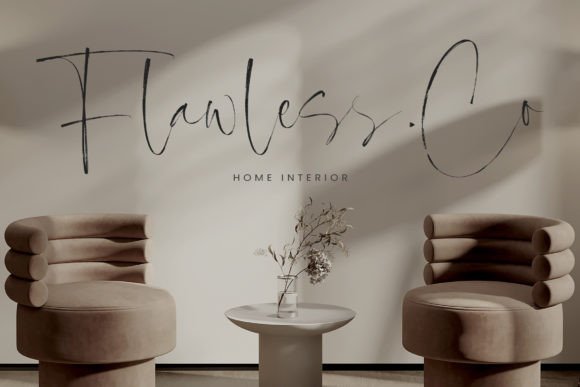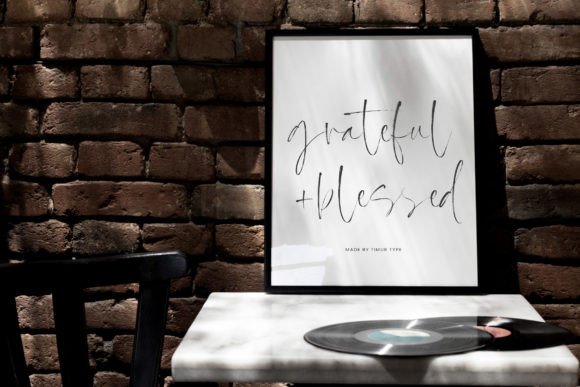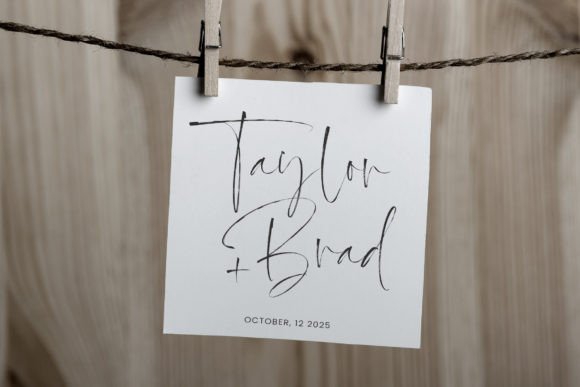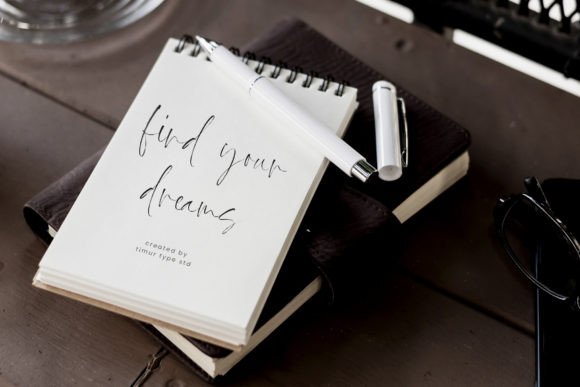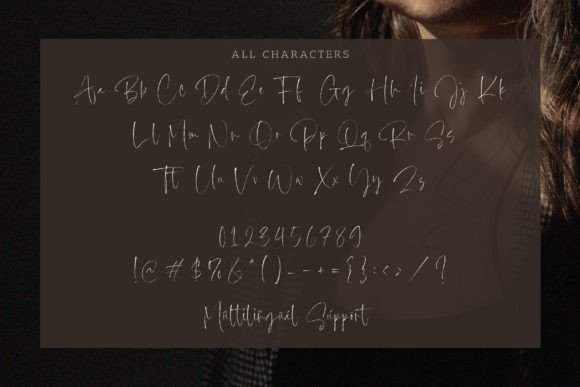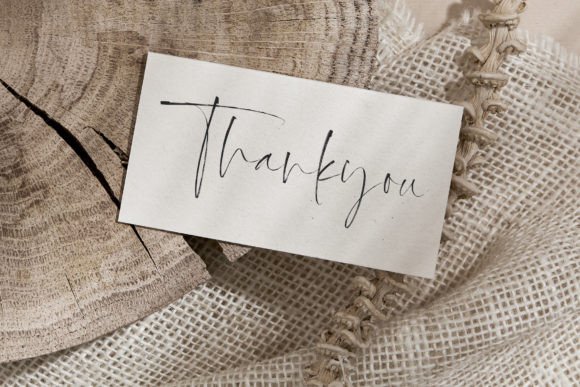
Introducing Estella Gardens Font: Elevate Your Designs with Timeless Elegance
Are you a designer or crafter looking for a font that adds a touch of sophistication and artisanal charm to your projects? Look no further than Estella Gardens Font, a stunning hand-brushed script font that brings a level of refined beauty and individuality to your designs. In this article, we’ll explore the unique features of Estella Gardens Font and how it can transform your words into visual poetry.
The Timeless Elegance of Hand-Brush Script Fonts
Hand-brush script fonts have been a staple of design for centuries, and for good reason. They possess a timeless elegance that is hard to replicate with digital fonts. Each stroke is a deliberate and personal gesture, imbuing the text with a sense of human touch and craftsmanship. Estella Gardens Font is no exception, showcasing the beauty of hand-brushed script fonts with its organic lines and graceful curves.
What Sets Estella Gardens Font Apart
So, what makes Estella Gardens Font stand out from other hand-brushed script fonts? Here are a few key features that set it apart:
- Organic lines and curves: Estella Gardens Font boasts fluid, organic lines and curves that give it a natural, effortless feel.
- Modern sophistication: Despite its artisanal roots, Estella Gardens Font has a modern sophistication that makes it perfect for a wide range of design applications.
- Bespoke charm: Each letterform is carefully crafted to add a touch of bespoke charm to your designs, making them truly unique and eye-catching.
How Estella Gardens Font Can Elevate Your Designs
Whether you’re a designer, crafter, or DIY enthusiast, Estella Gardens Font can add a level of refinement and beauty to your projects. Here are just a few ways you can use this stunning font:
- Wedding and event invitations: Add a touch of elegance and sophistication to your wedding or event invitations with Estella Gardens Font.
- Branding and packaging: Use Estella Gardens Font to create unique and eye-catching branding and packaging that sets your business apart.
- Stationery and cards: Add a personal touch to your stationery and cards with the beautiful, hand-brushed script of Estella Gardens Font.
- Digital and print media: Estella Gardens Font is perfect for use in digital and print media, including magazines, blogs, and social media graphics.
Tips for Using Estella Gardens Font
To get the most out of Estella Gardens Font, here are a few tips to keep in mind:
- Use it sparingly: Estella Gardens Font is a statement font, so use it sparingly to add emphasis and create visual interest.
- Pair it with contrasting fonts: Pair Estella Gardens Font with contrasting fonts to create visual interest and add depth to your designs.
- Experiment with colors and textures: Don’t be afraid to experiment with different colors and textures to add an extra layer of depth and interest to your designs.